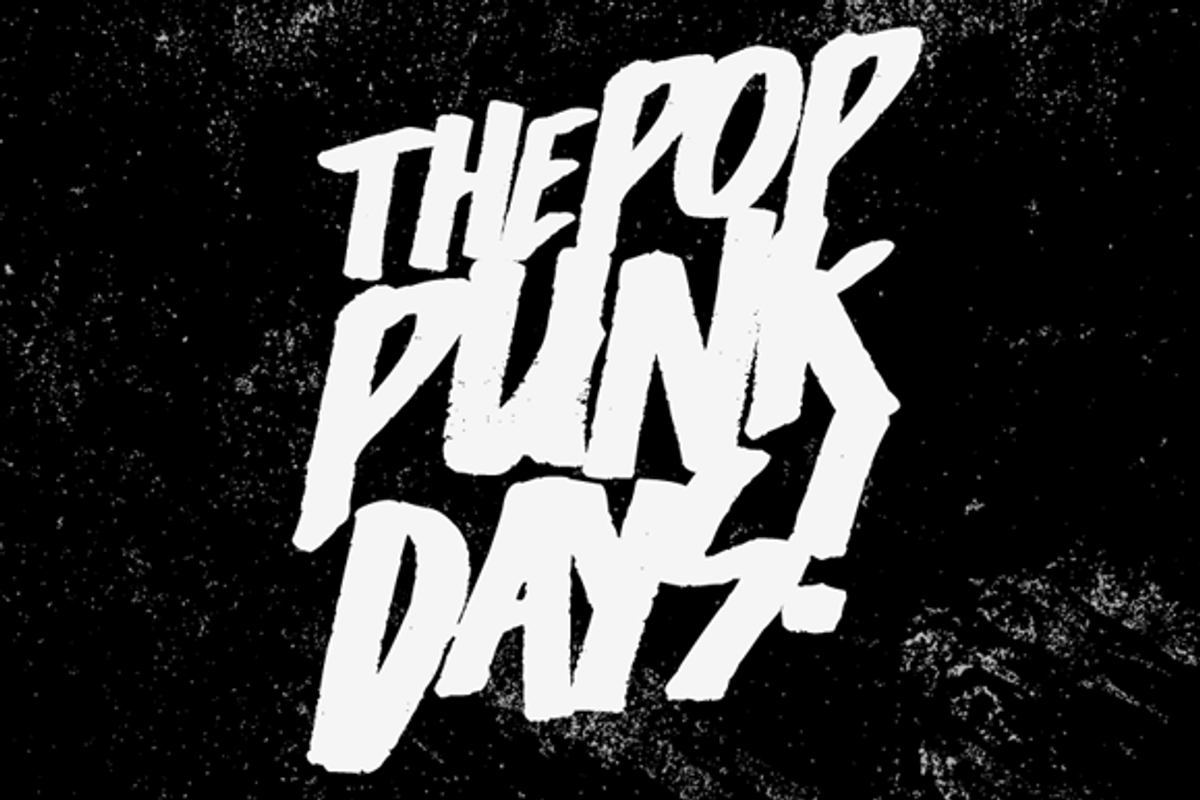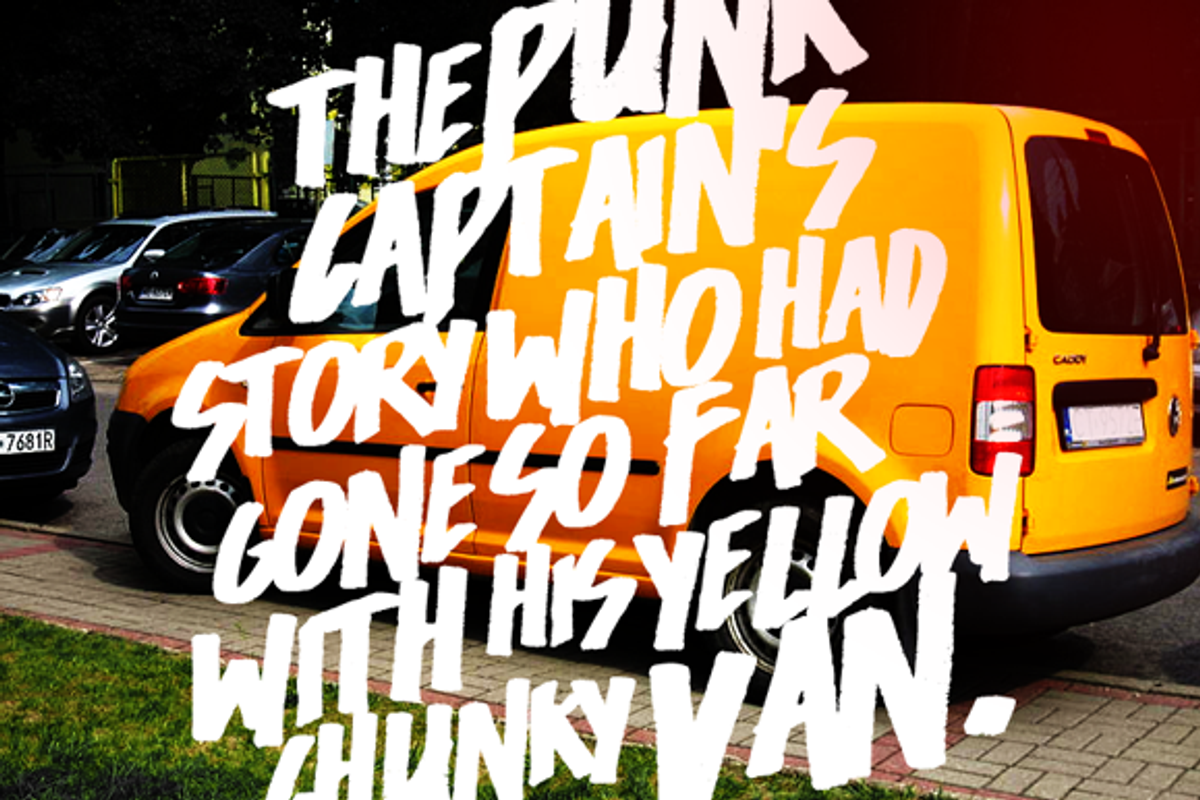
Easycore Font
Easycore Font by The Branded Quotes is a font selected for branding, posters, packaging, typography.
Why Easycore Font is worth a look
Easycore Font by The Branded Quotes fits naturally into Branding, posters, packaging, typography.